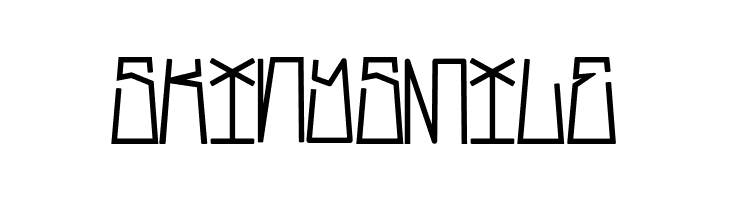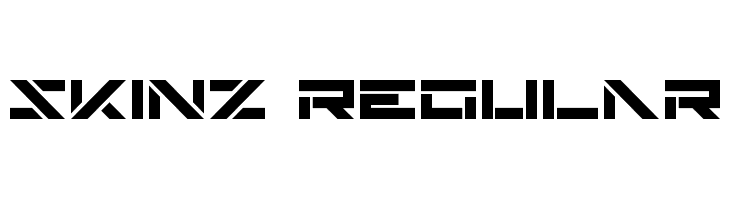
A bold, playful font with a zebra-like pattern and strong contrast.
A modern, geometric font with thin, elongated characters and a sleek design.
A playful, handwritten font with thin, irregular strokes and a whimsical style.
A playful, bold outline font with a hand-drawn, cartoonish style.
A playful, tall, and narrow font with a whimsical, hand-drawn style.
A playful, hand-drawn font with tall, narrow characters and a whimsical style.
A playful, bold, hand-drawn font with a cartoonish style.